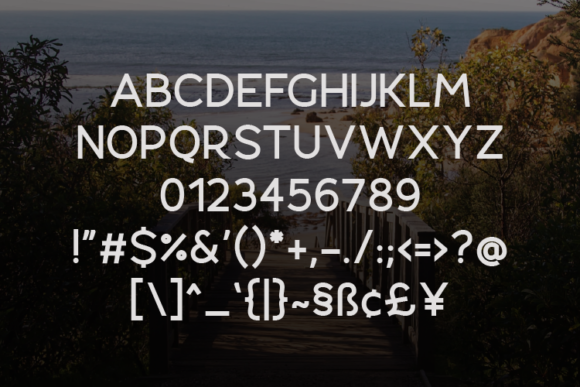
Introduction to Quinestha Extra Bold Font
Quinestha is simple but elegant and defined by its crisp edges and modern touches.
It is designed for optimal legibility and works great in branding, logos, headlines, high fashion and much more .
Key Features of Quinestha Extra Bold Font
Why Choose Quinestha Extra Bold Font?